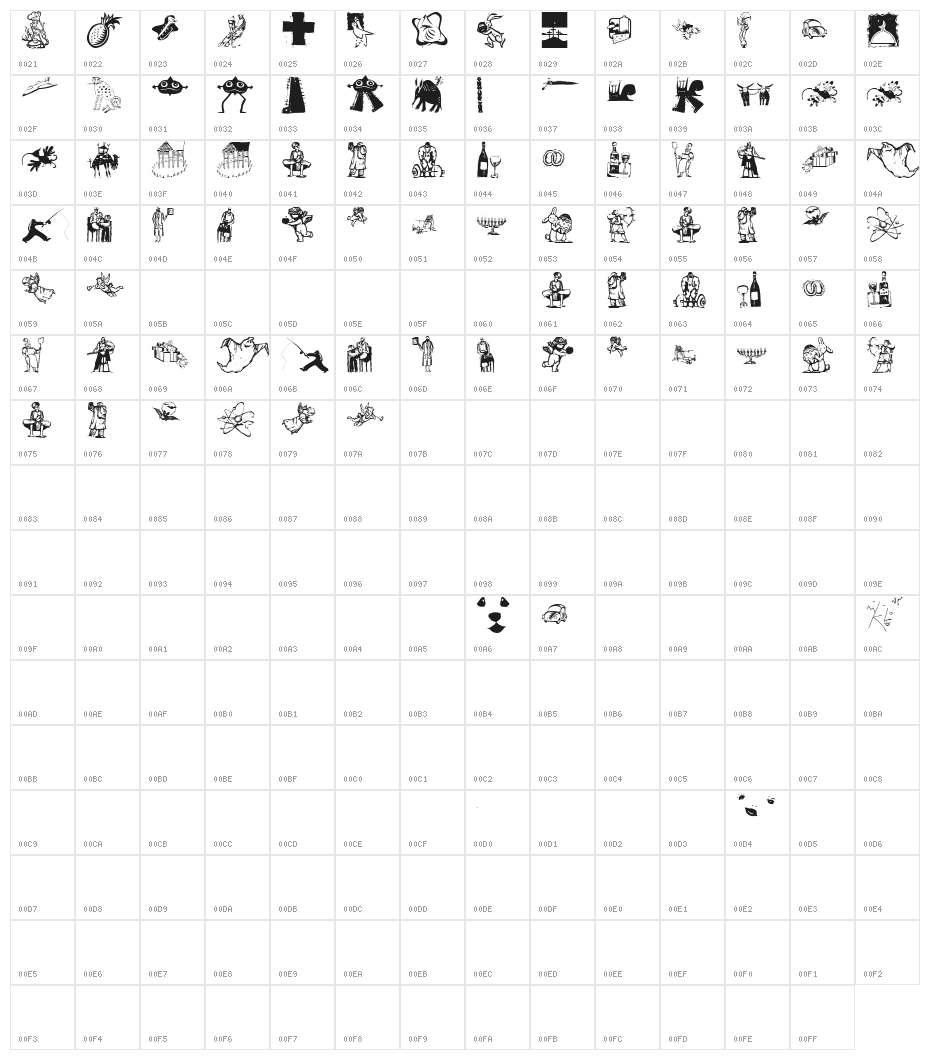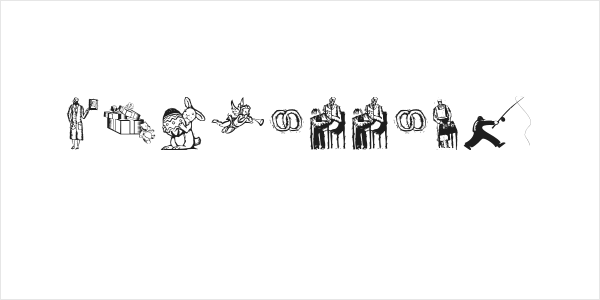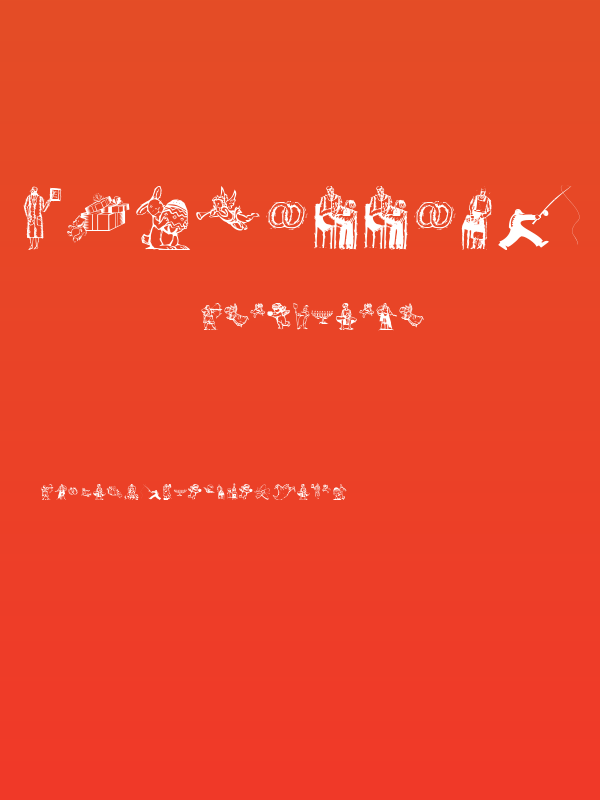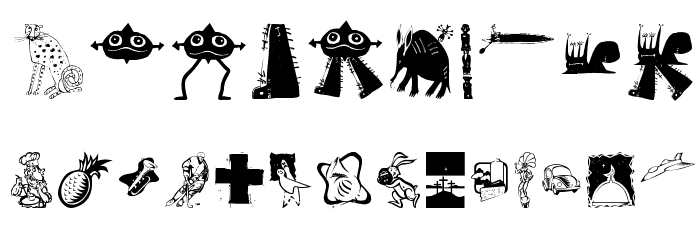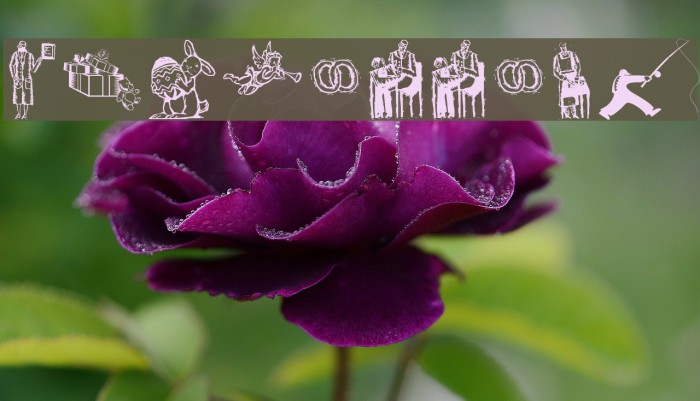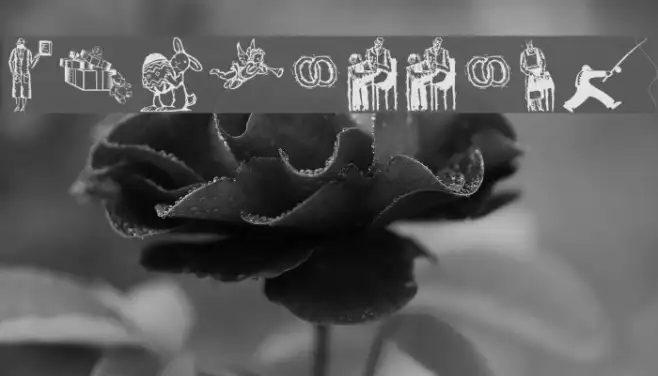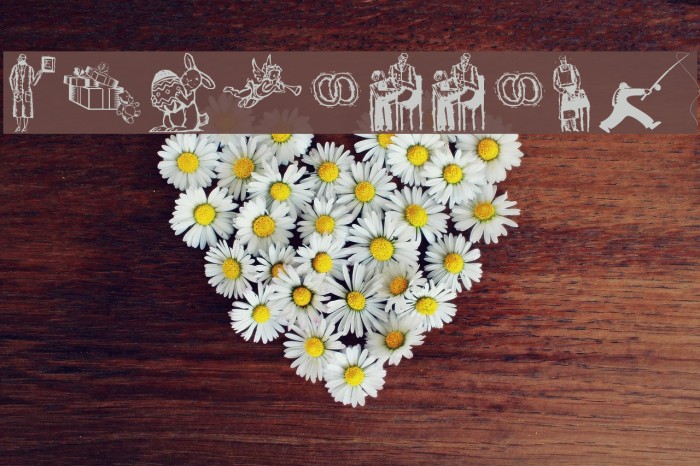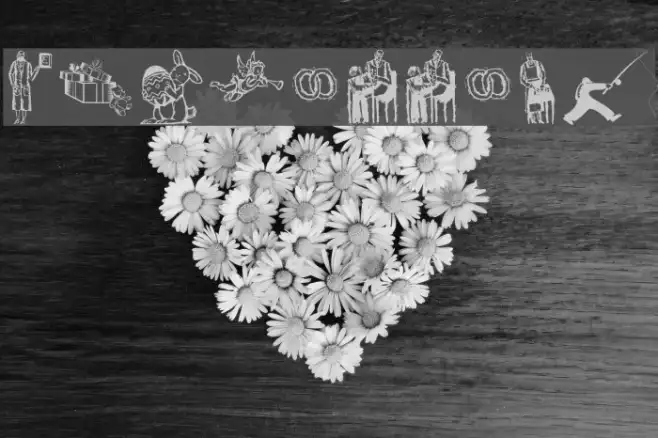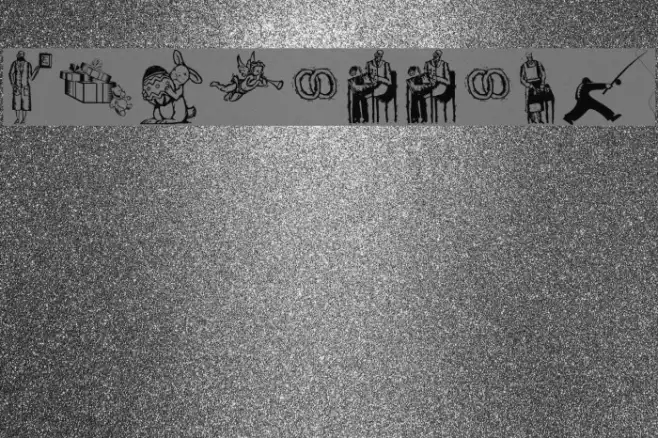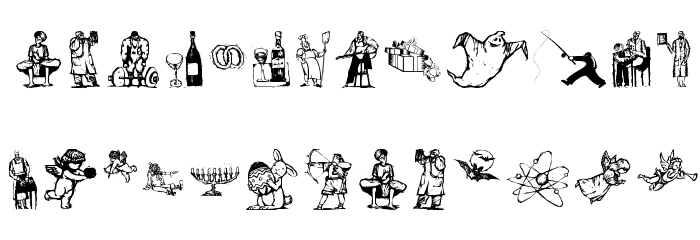
MiszellenK Font
MiszellenK Description
A whimsical and eclectic collection of hand-drawn pictograms, each character represented by a unique illustration depicting people, animals, objects, and abstract concepts. The style is playful and cartoonish, with varying line thickness and a loose, sketch-like quality.
| Overall Style | Decorative, Whimsical, Cartoonish |
| Use Case | Illustrative elements, Themed headlines, Decorative accents |
| Proposed Projects | Children’s books, educational materials, party invitations, creative posters, themed event graphics. |